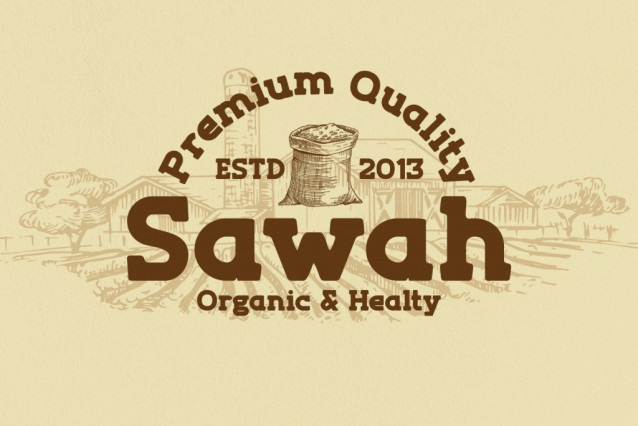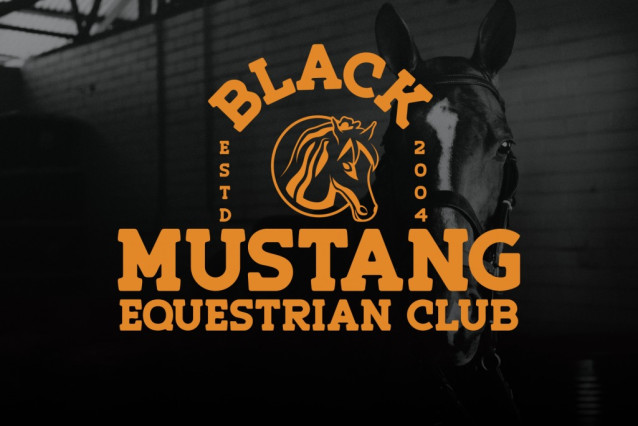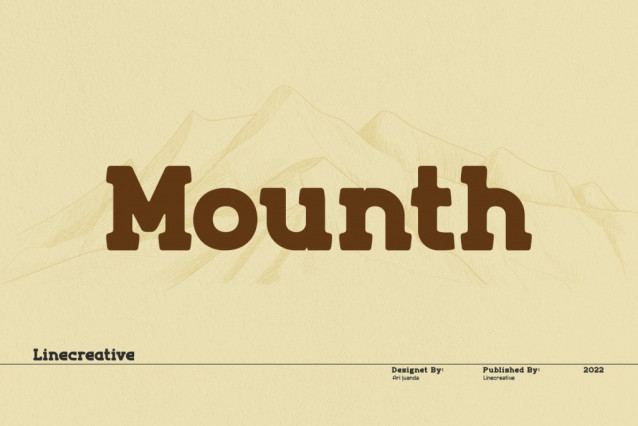
Mounth Font
Mounth Font is a bold slab-serif font for titling, captions and logo. this font is similar to Simple Note font, but it comes in round and rough shapes.